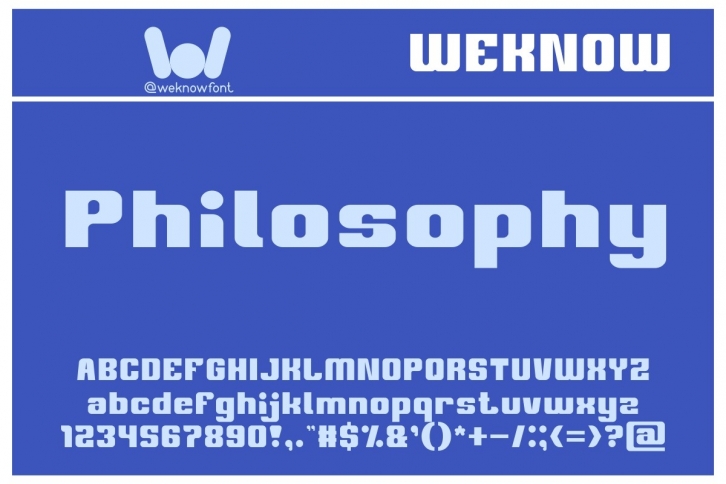
Philosophy is a cool and bold display font. No matter the topic, this font will be an incredible asset to your fonts’ library, as it has the potential to elevate any creation.